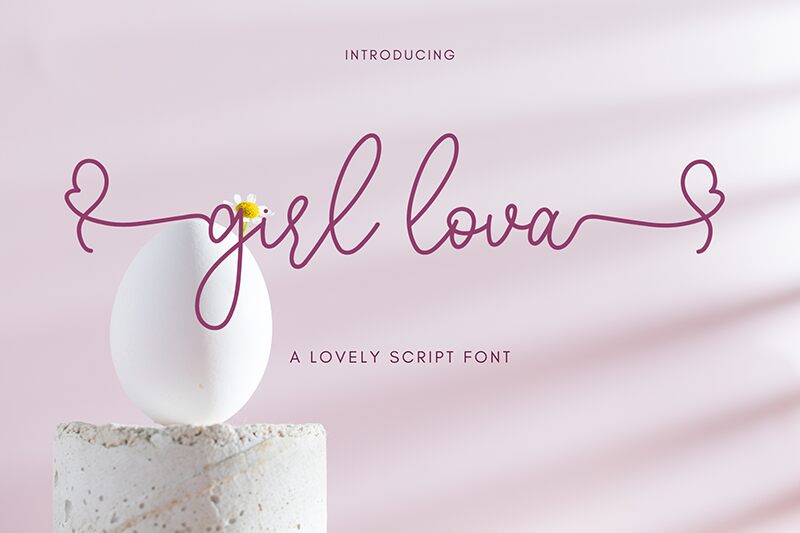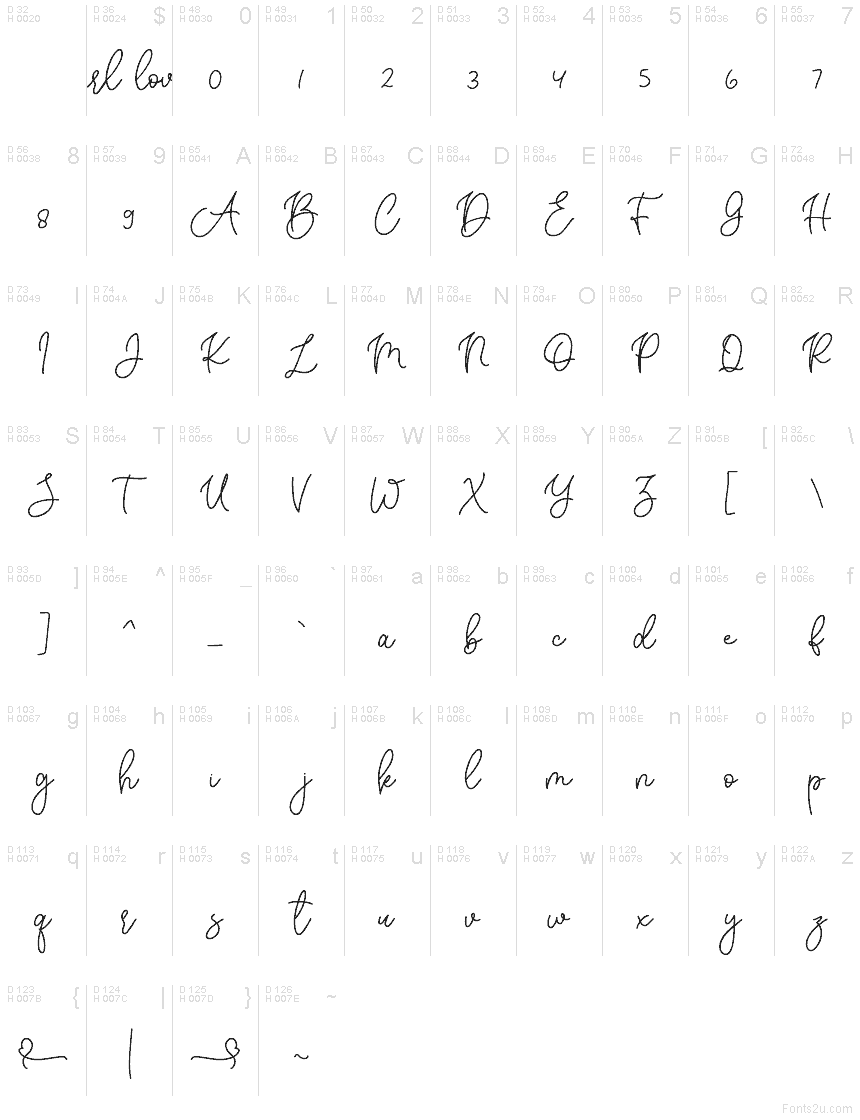
Girl lova
Girl lova font by Ibrahima Studio is a free handwritten script typeface that feels like a message penned in a favorite notebook. Its looping, gently tilted strokes glide from letter to letter, creating a smooth, unbroken line that feels warm, flirty, and a little bit whimsical. The texture is clean but not stiff, giving designs a personal, human touch without sacrificing clarity.
Using Girl lova, you can bring that soft, romantic energy to wedding invitations, save-the-dates, bridesmaid proposals, cosmetic and boutique branding, social media quotes, packaging, and lifestyle blog headers. This free font shines when you give it room to breathe at larger sizes, and it pairs beautifully with a simple sans serif for small supporting text.